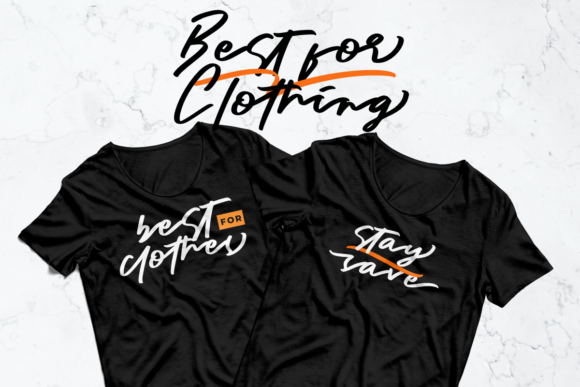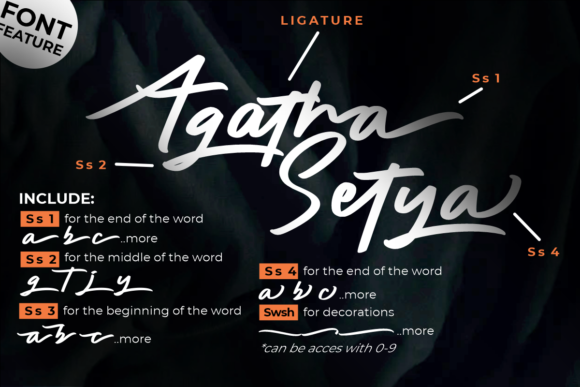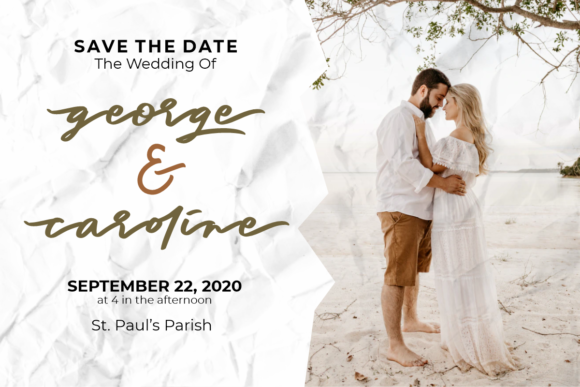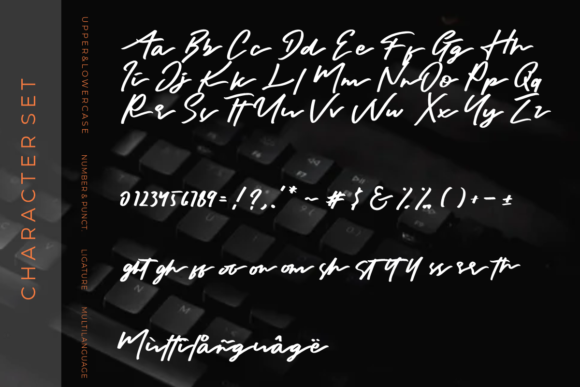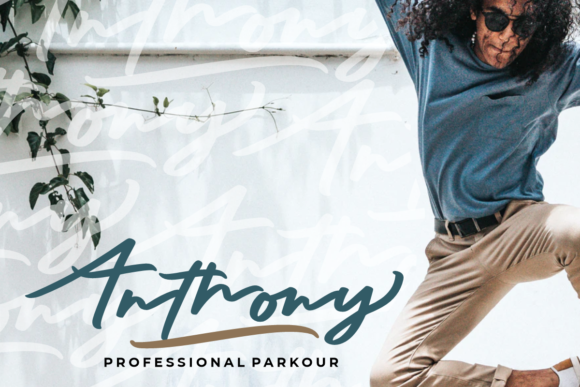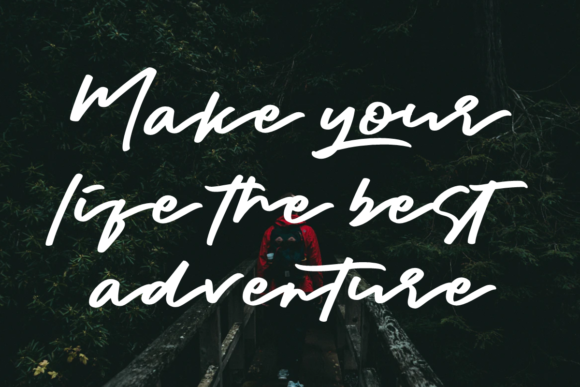
The Gothic Font: Elevate Your Designs with Elegance and Flair
Have you ever been in the middle of a design project, pouring your heart and soul into it, only to hit a roadblock when it comes to choosing the perfect font? I certainly have! It was during one of those moments, working on a vintage-inspired branding project, that I stumbled upon the Gothic font. This cool and stylish script font has been a game-changer for me, and I’m excited to share its beauty and versatility with you.
A Personal Encounter with Gothic Font
I recall struggling to find a font that captured the essence of a bygone era while still being modern and chic. My client was looking for something that would make their brand stand out, and I knew I had to deliver. That’s when I discovered the Gothic font, with its elegant lines and sophisticated feel. It was love at first sight! Not only did it fit the bill, but it also added a touch of whimsy and flair to the design.
What I Love About Gothic Font
• PUA encoded for easy access: The Gothic font is PUA (Private Use Area) encoded, which means you can easily access all the glyphs and swashes without any hassle.
• Highly versatile: This font is perfect for a wide range of projects, from branding and advertising to packaging and invitations.
• 💫 Unique and eye-catching: The Gothic font has a distinct, stylish look that will make your designs stand out from the crowd.
• 🎨 OpenType features: With OpenType features, you can take your designs to the next level by adding ligatures, stylistic alternates, and more.
While the Gothic font is an amazing addition to any design project, there are a few things to keep in mind:
• 🤔 Compatibility issues: As with any font, there might be compatibility issues with certain software or platforms. Make sure to test it thoroughly before using it in your project.
• ⚠️ Overuse: While the Gothic font is stunning, overusing it can lead to a cluttered and overwhelming design. Balance is key!
The Story Behind Gothic Font
The Gothic font was inspired by traditional calligraphy and lettering techniques. Its creator aimed to craft a font that would evoke a sense of mystery and sophistication while still being approachable and elegant. The result is a font that exudes refinement and poise.
What is the Gothic font? The Gothic font is a stylish script font designed to add elegance and flair to your designs.
Is the Gothic font PUA encoded? Yes, the Gothic font is PUA encoded, making it easy to access all glyphs and swashes.